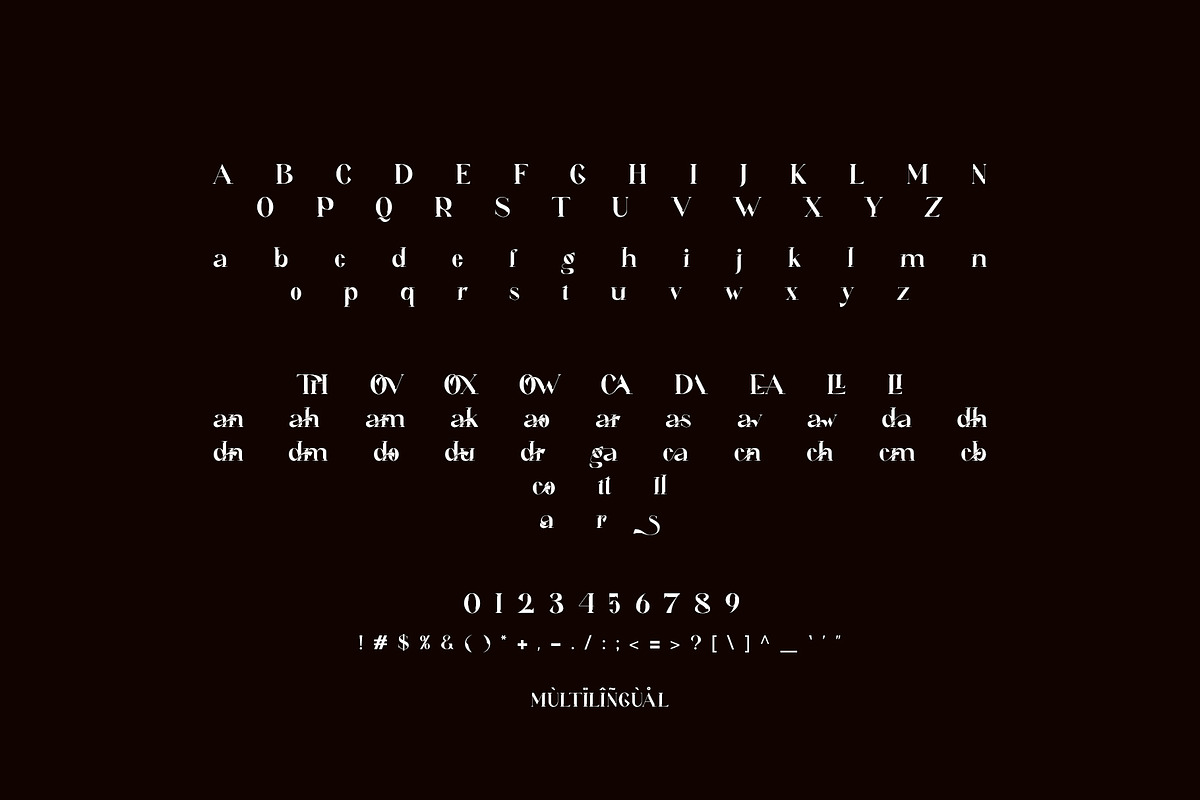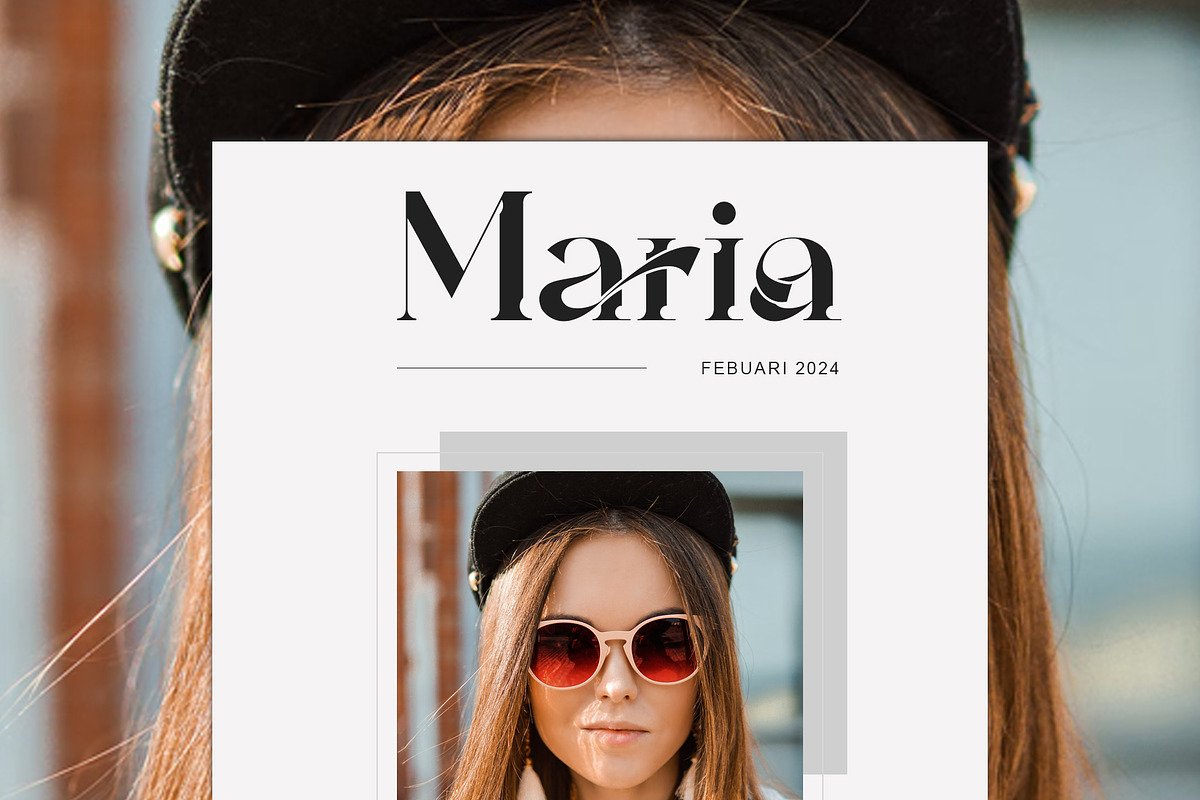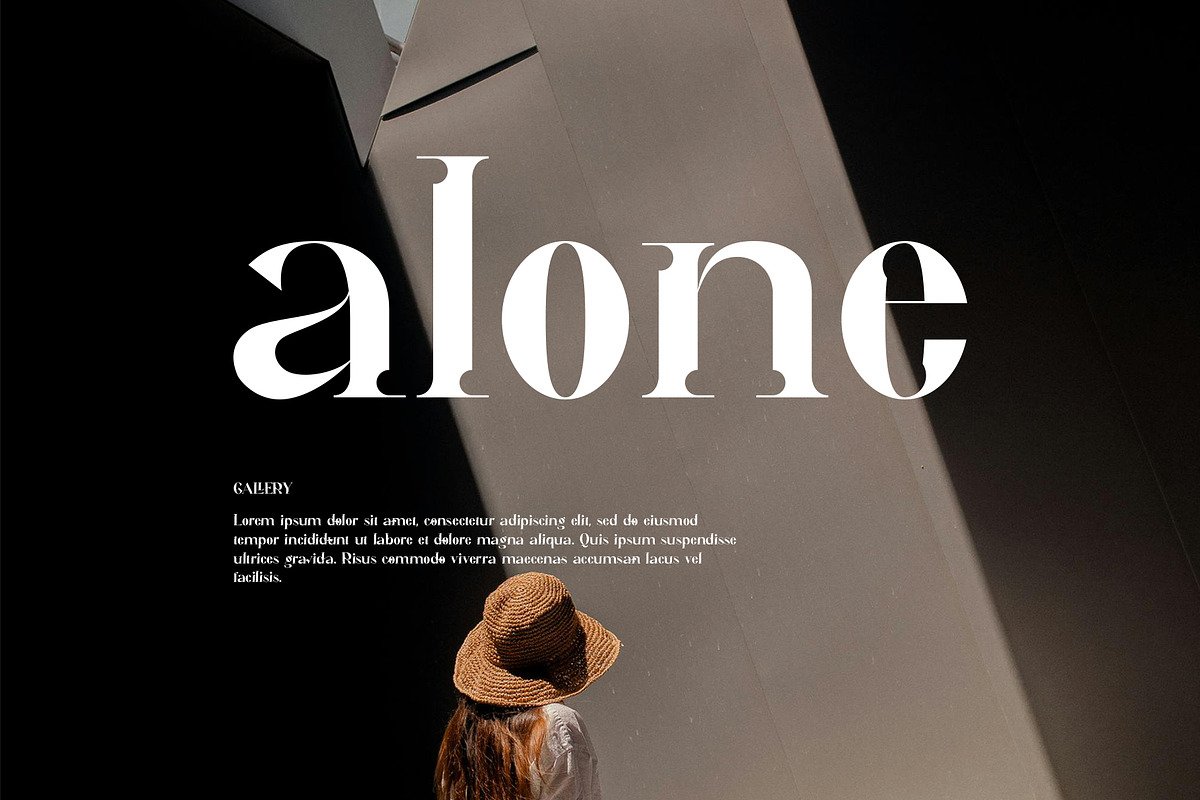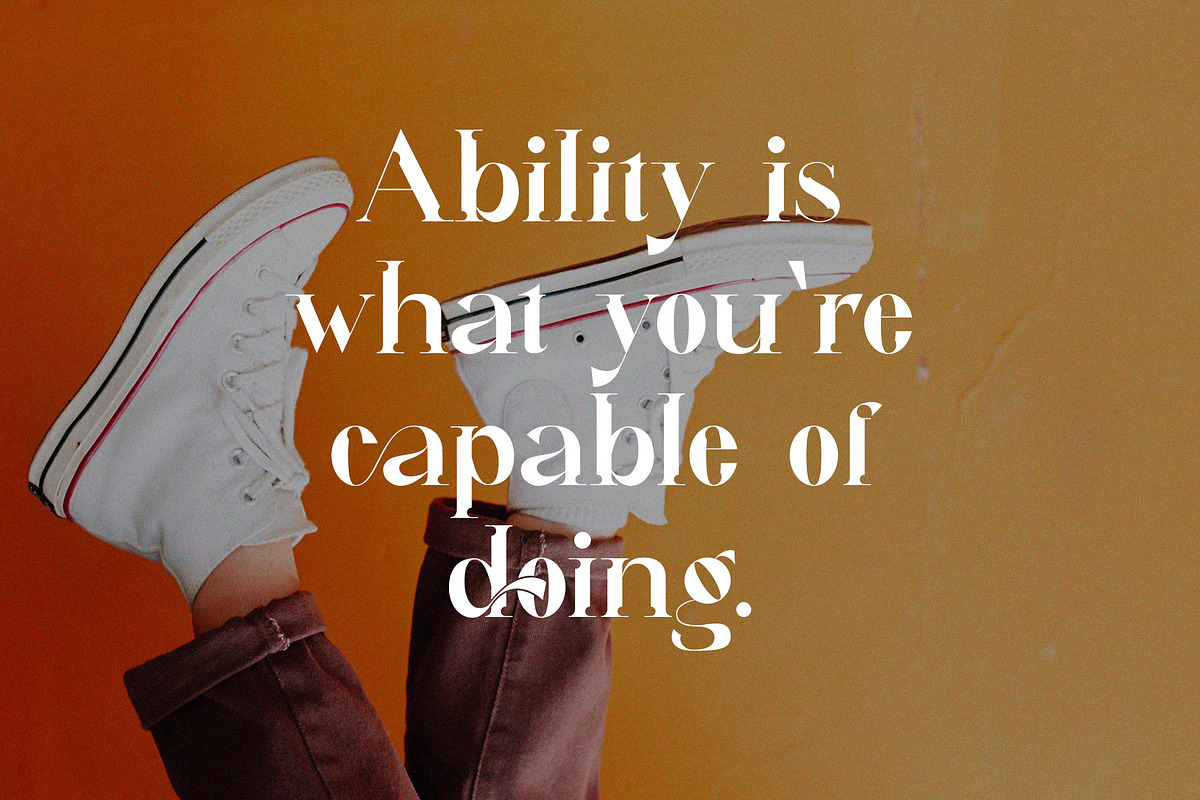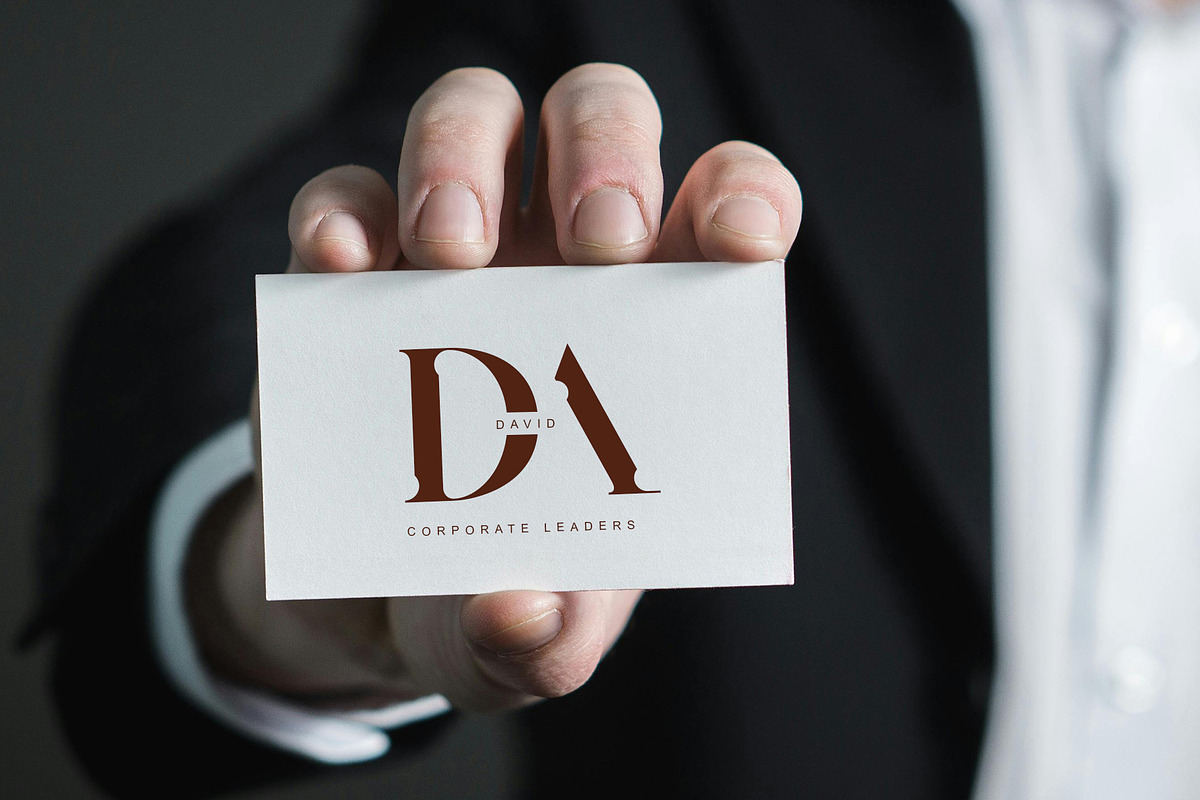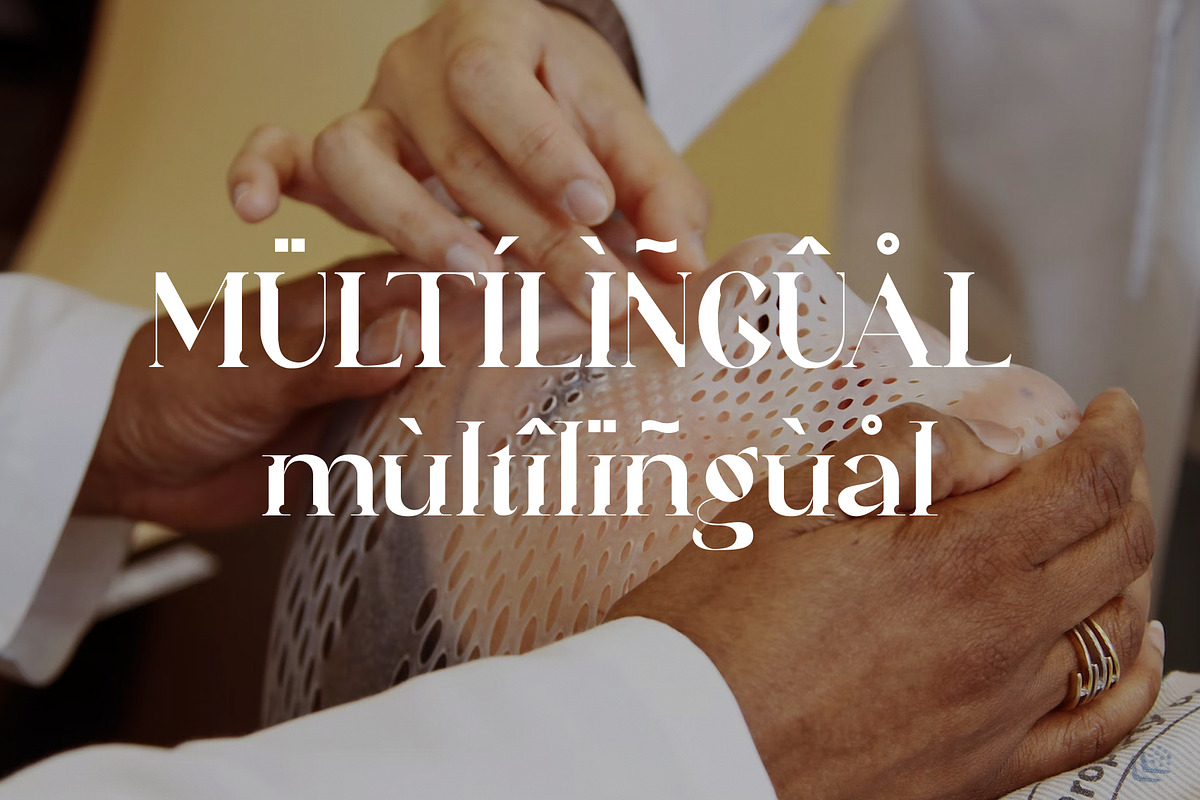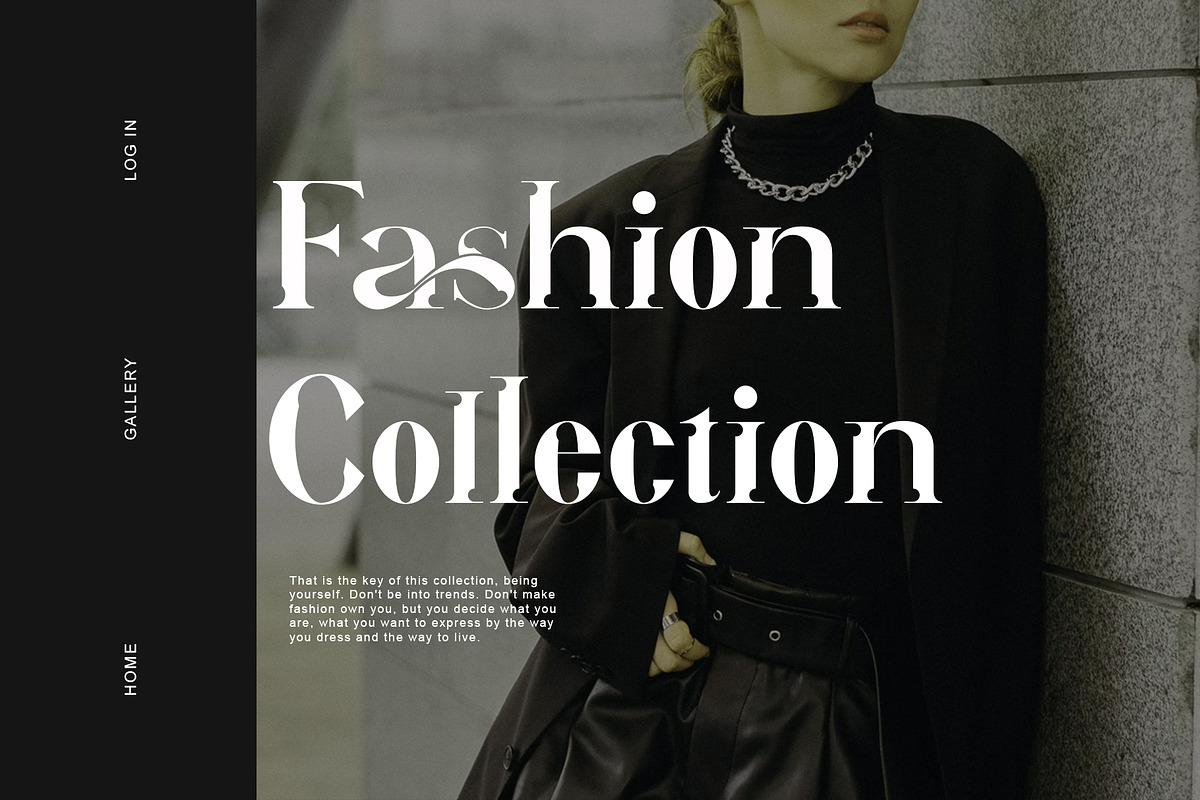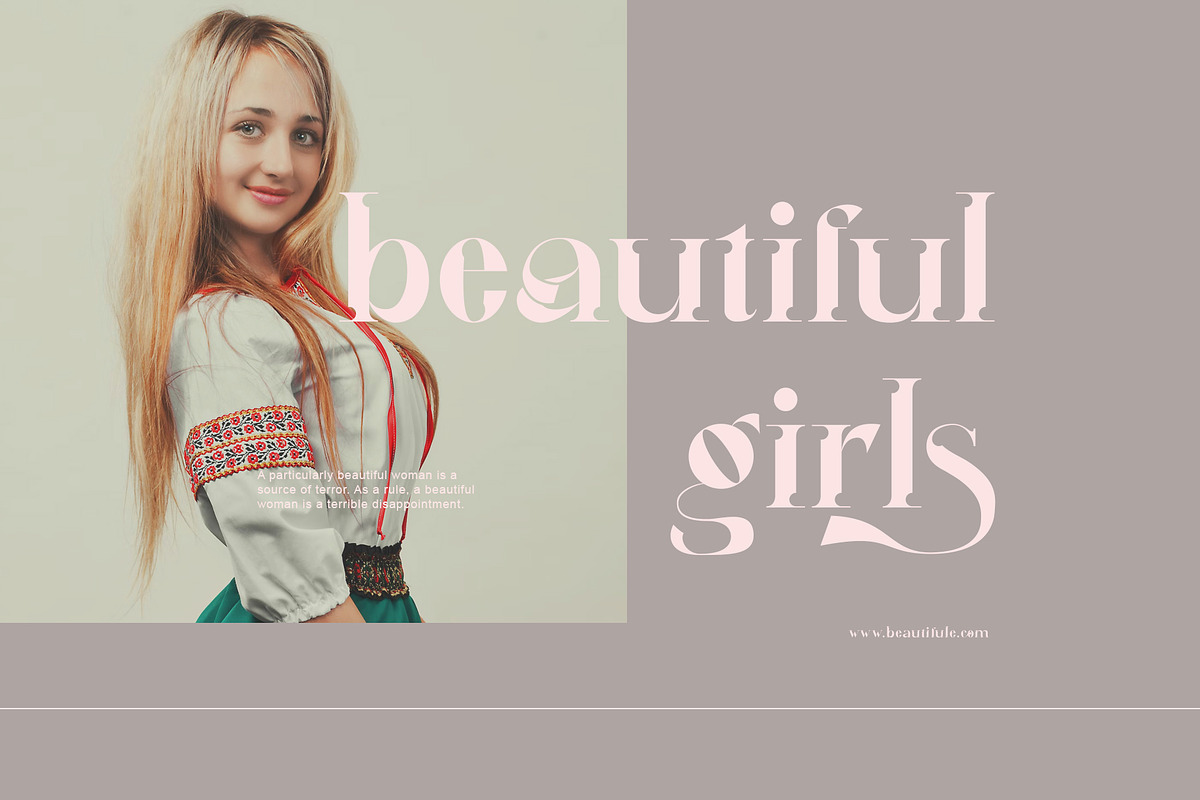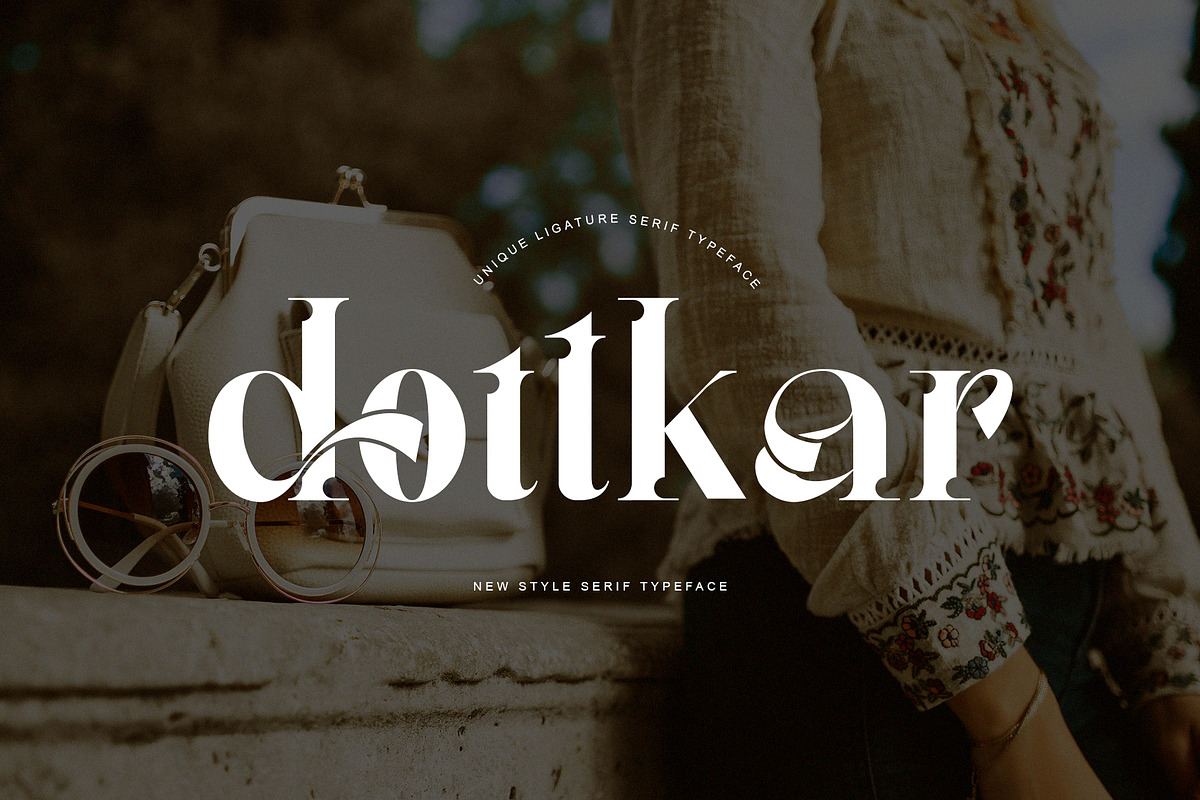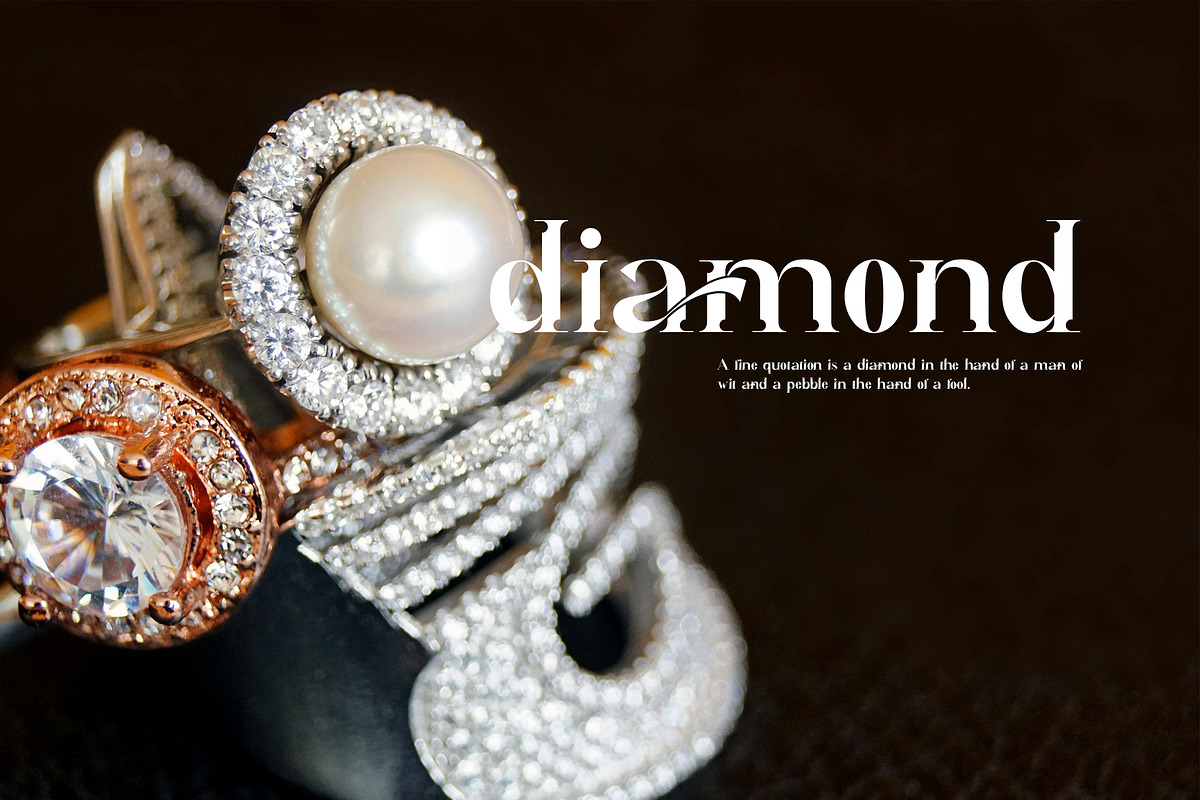
Dottkar Unique Ligature Serif
Dottkar Modern Serif Typeface inspired by the famous minimalist logo perfect for the purposes of designing templates, brochures, videos, advertising branding, logos, invitation, layout design, elegant crafting, beauty design and other